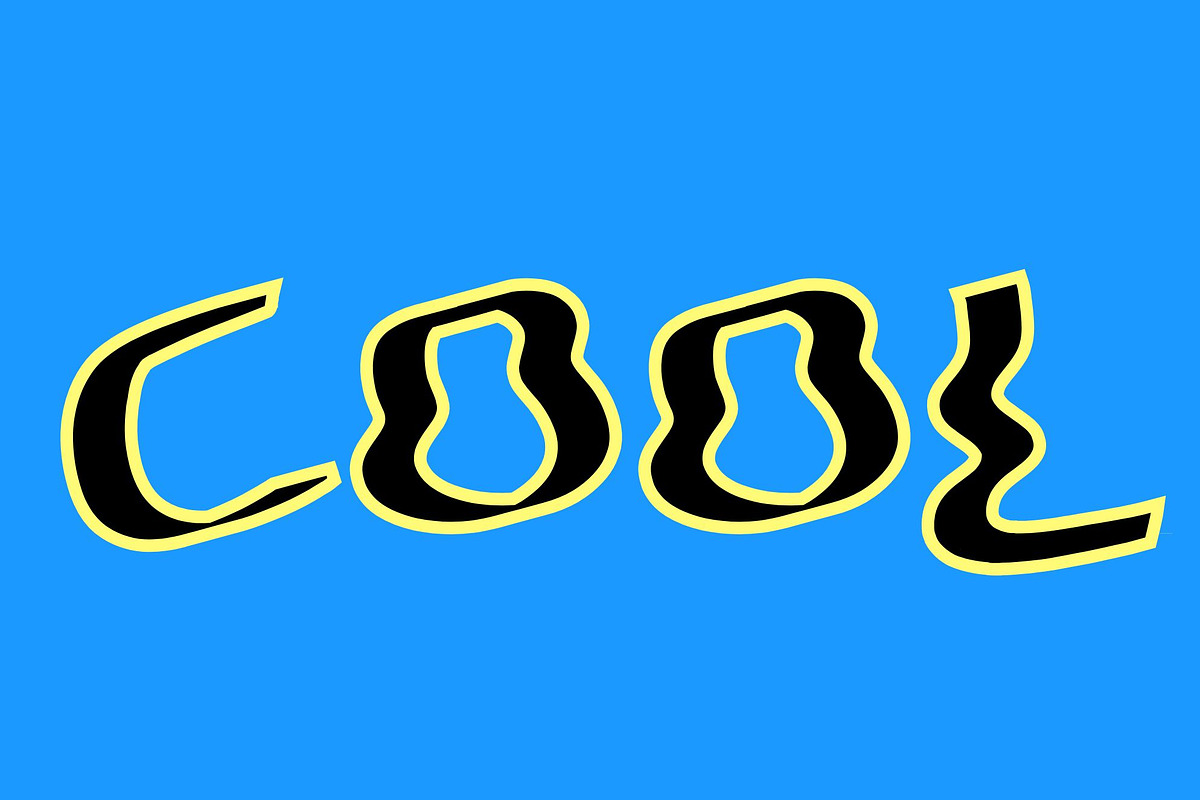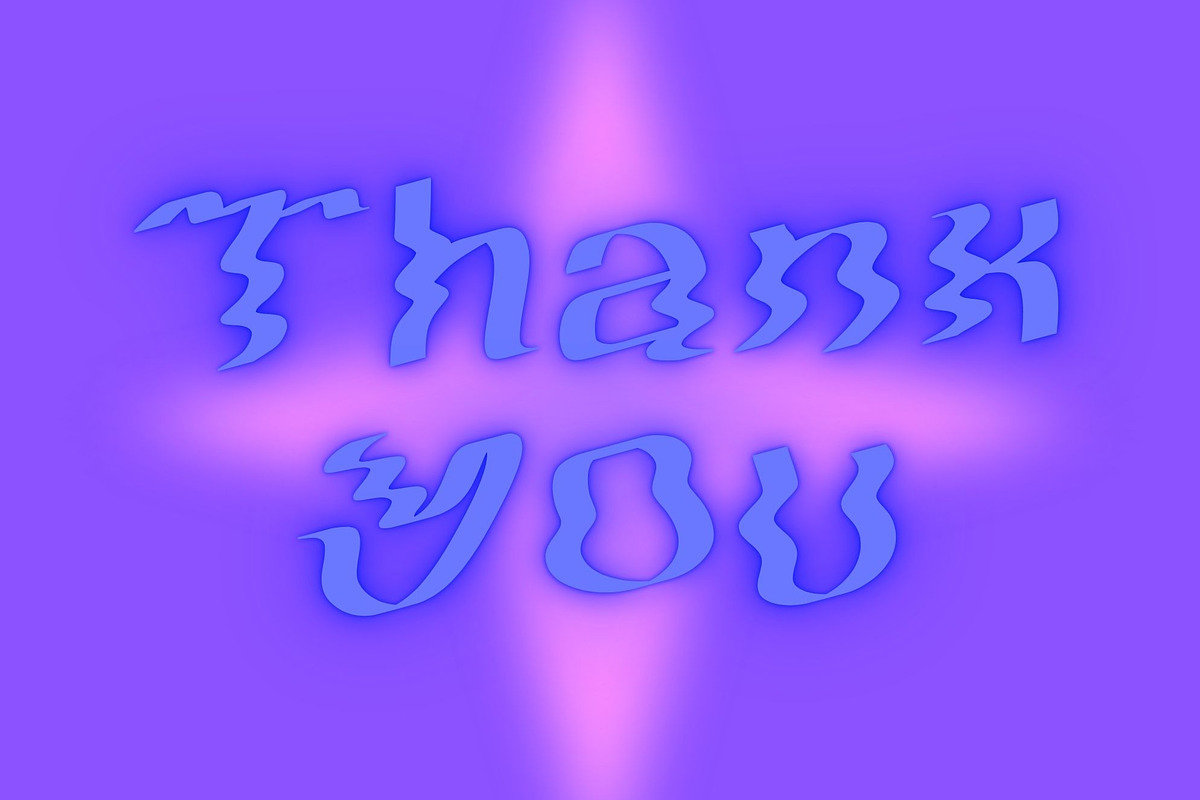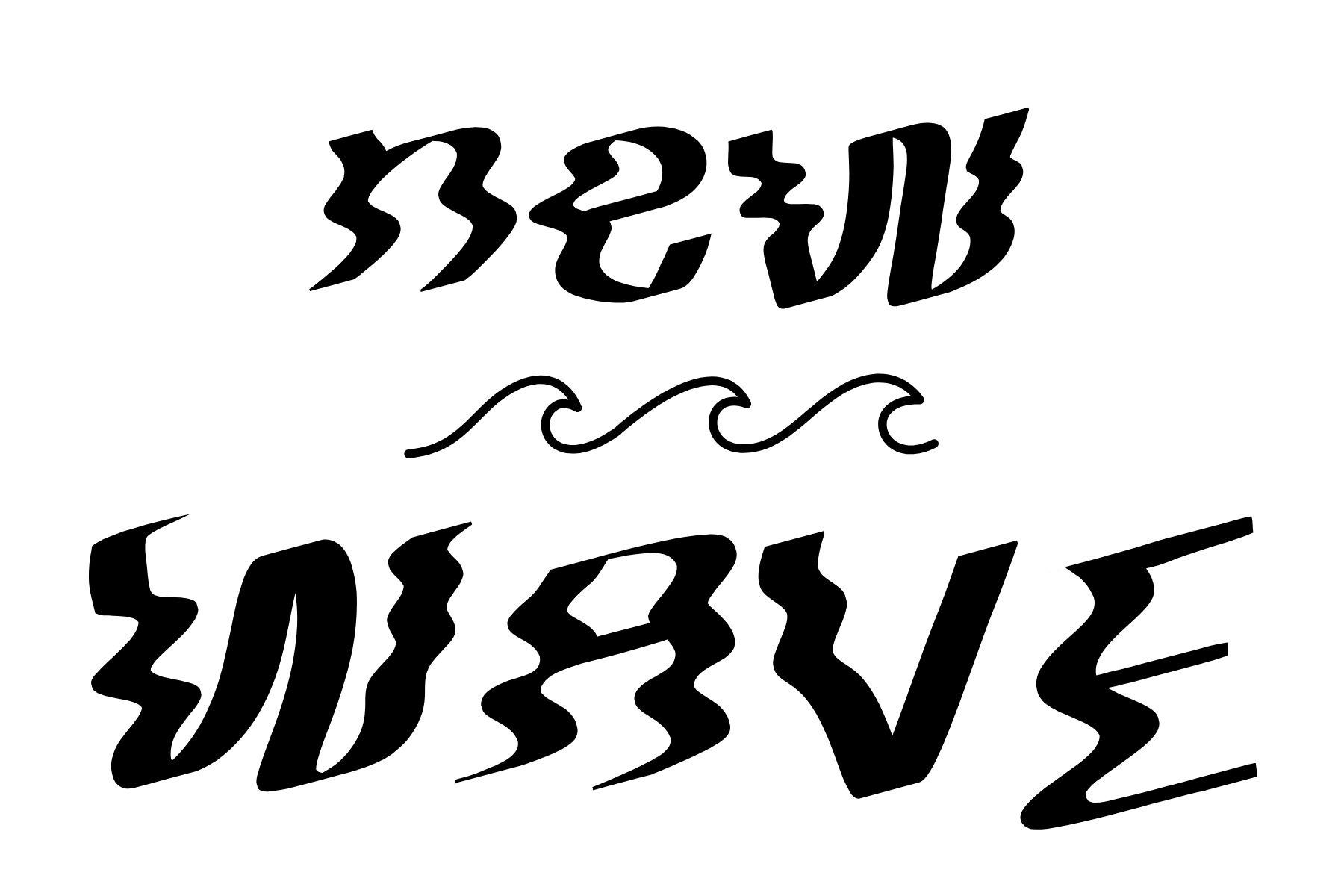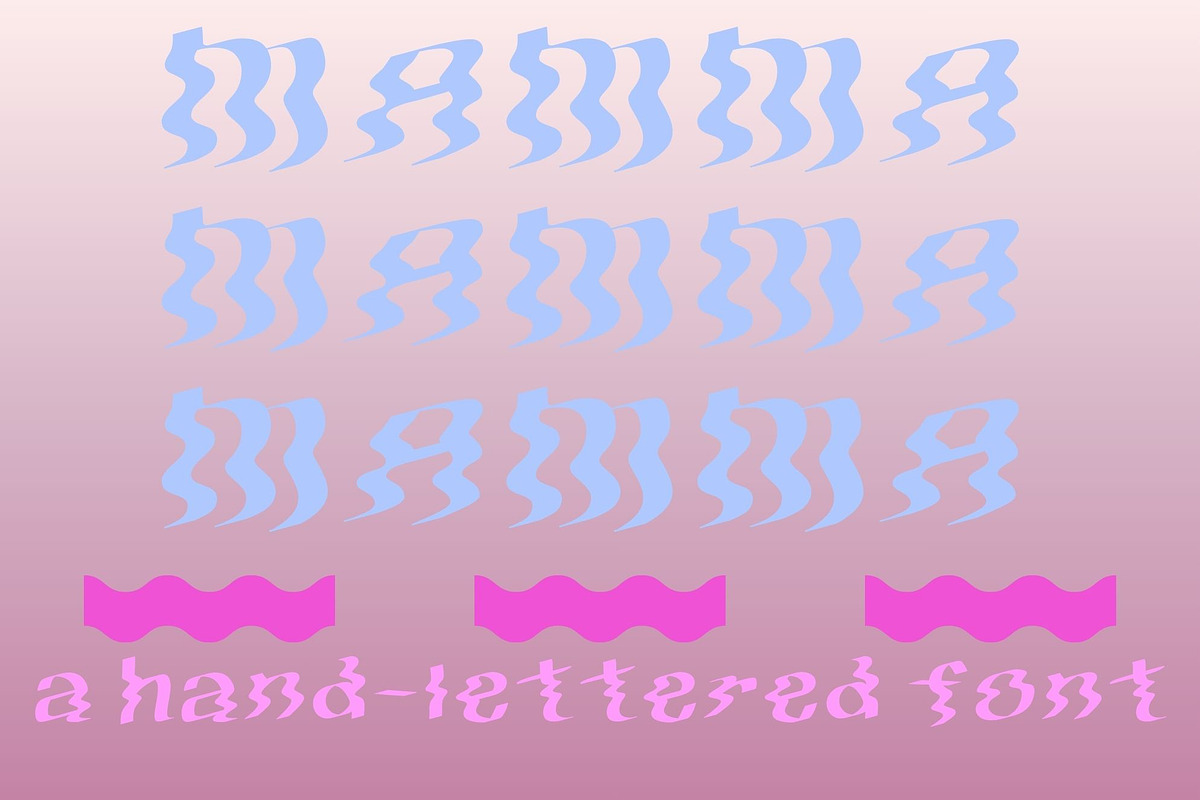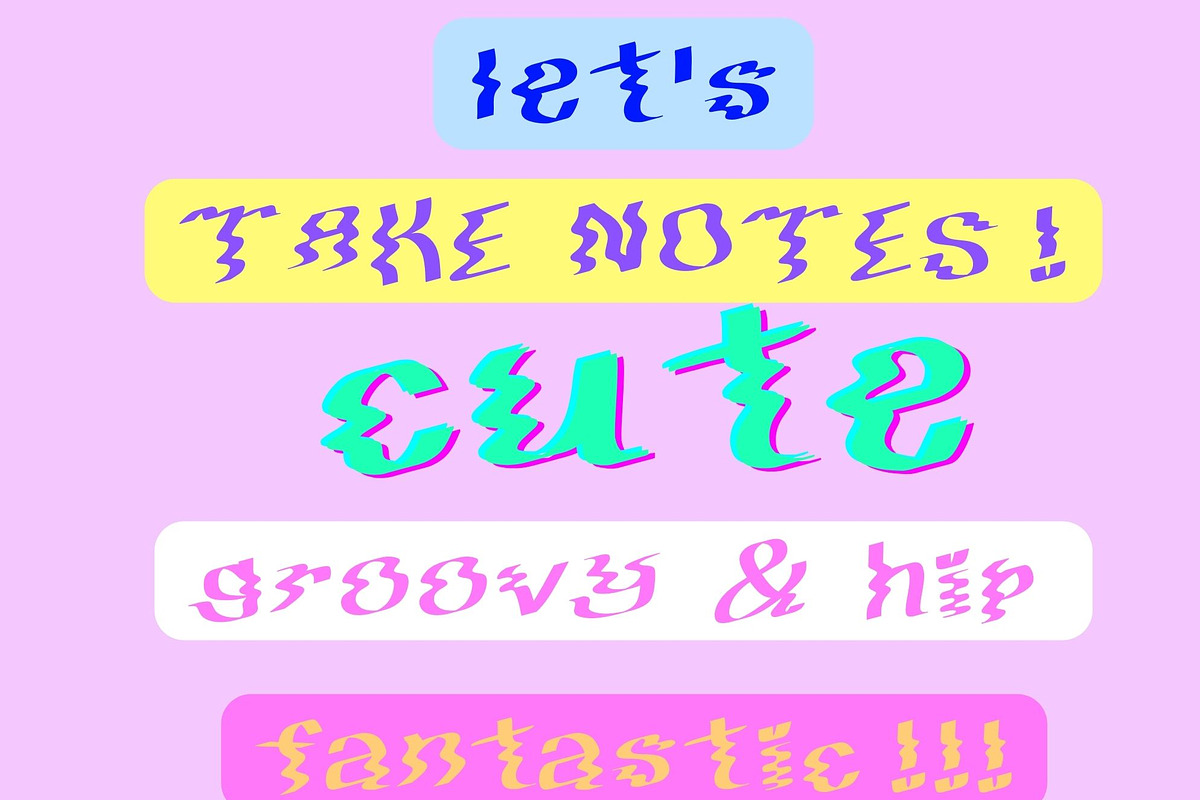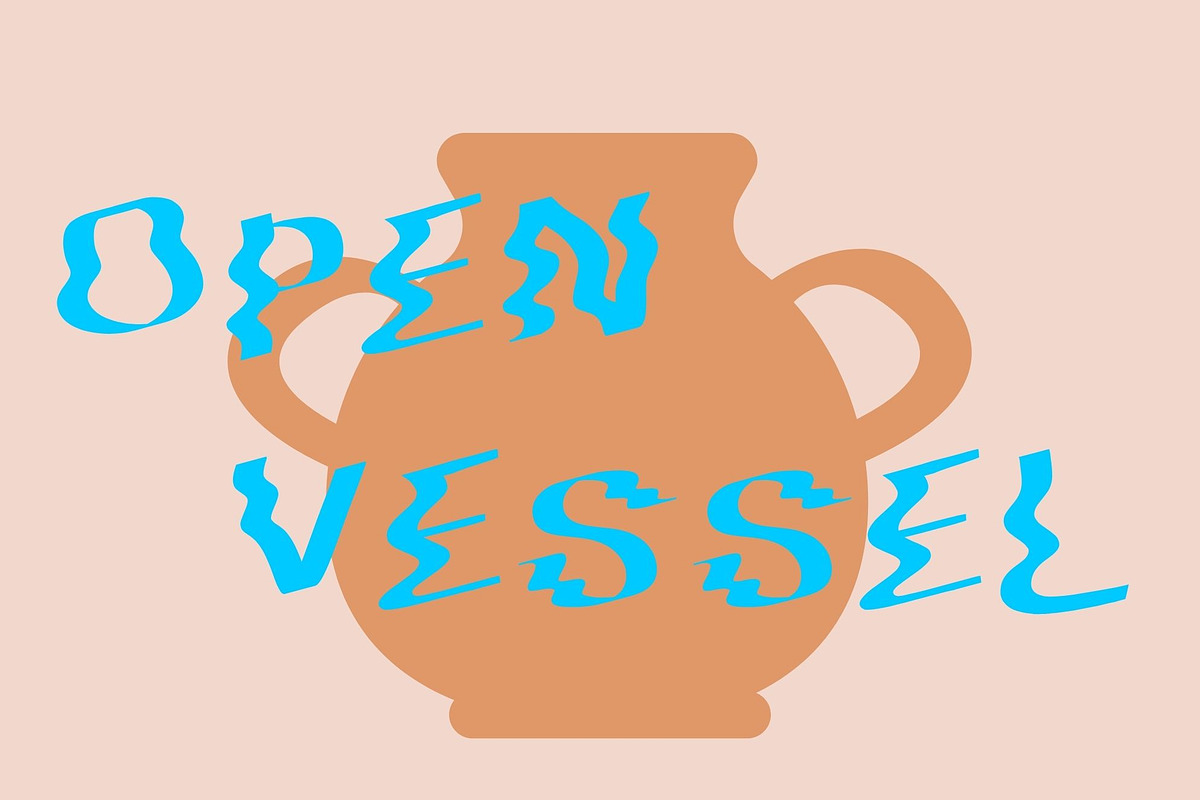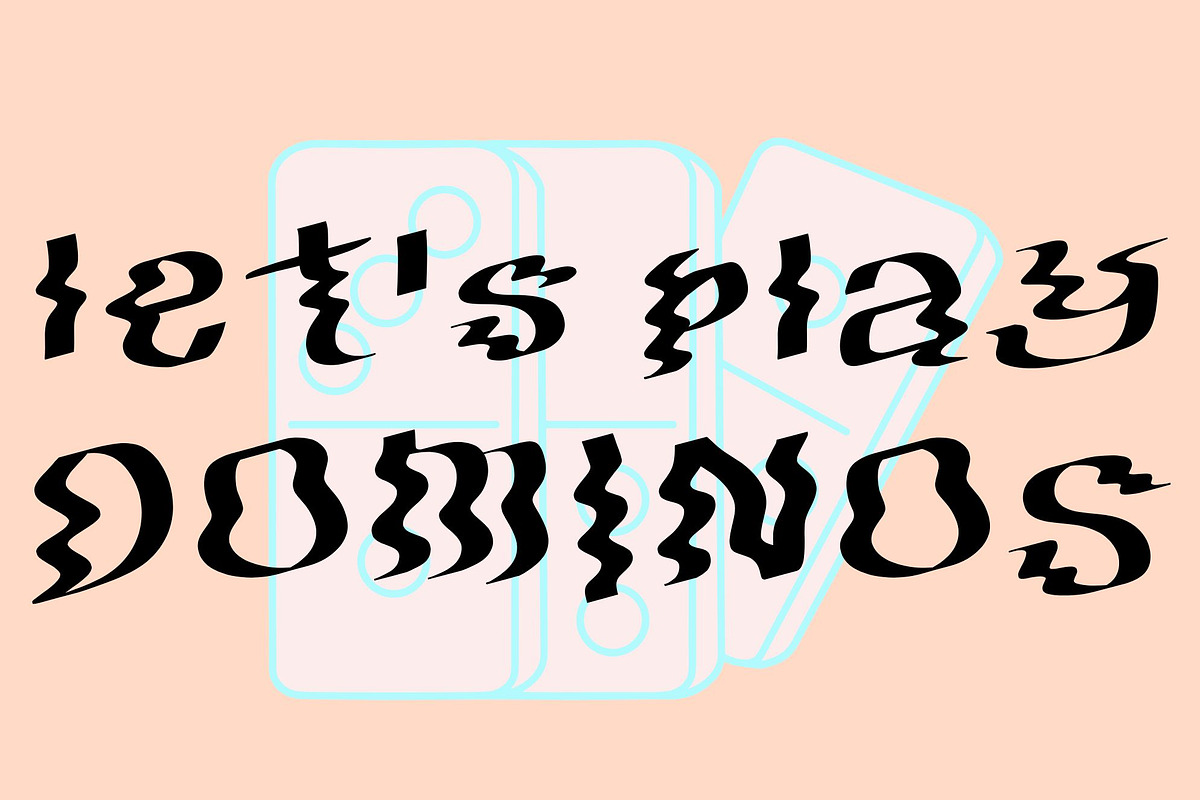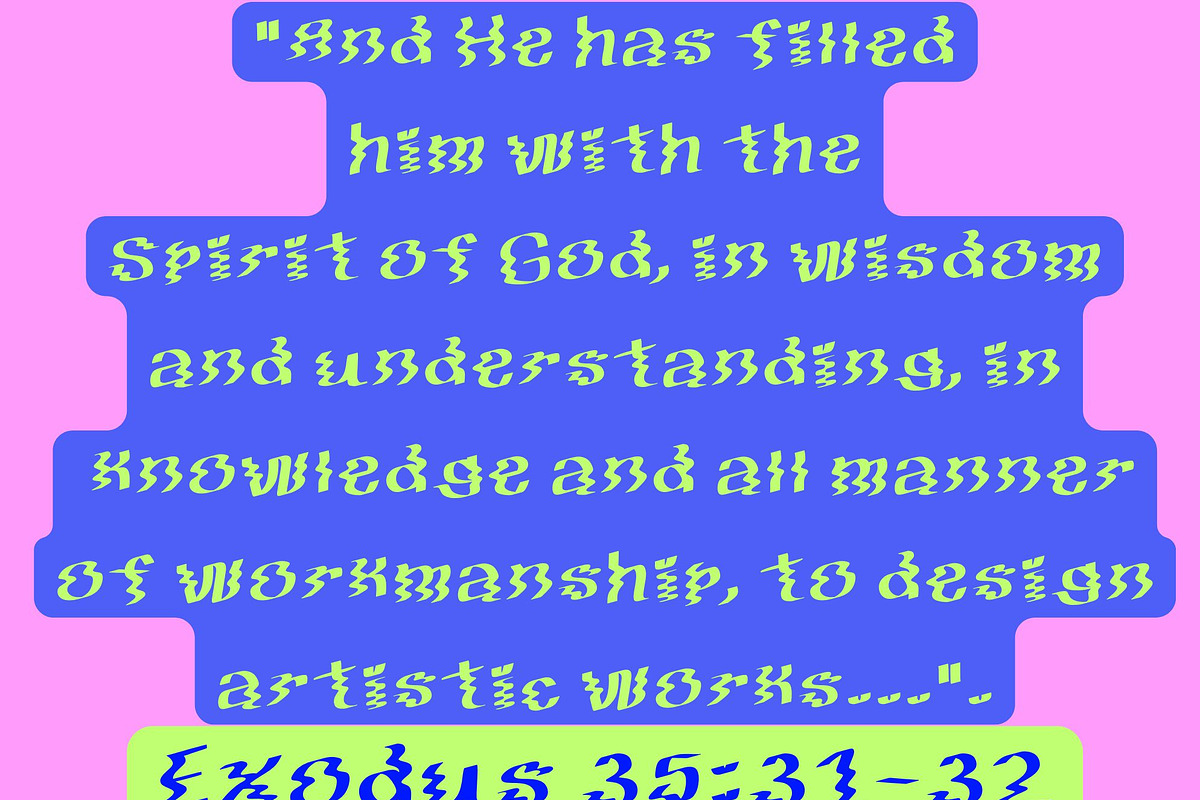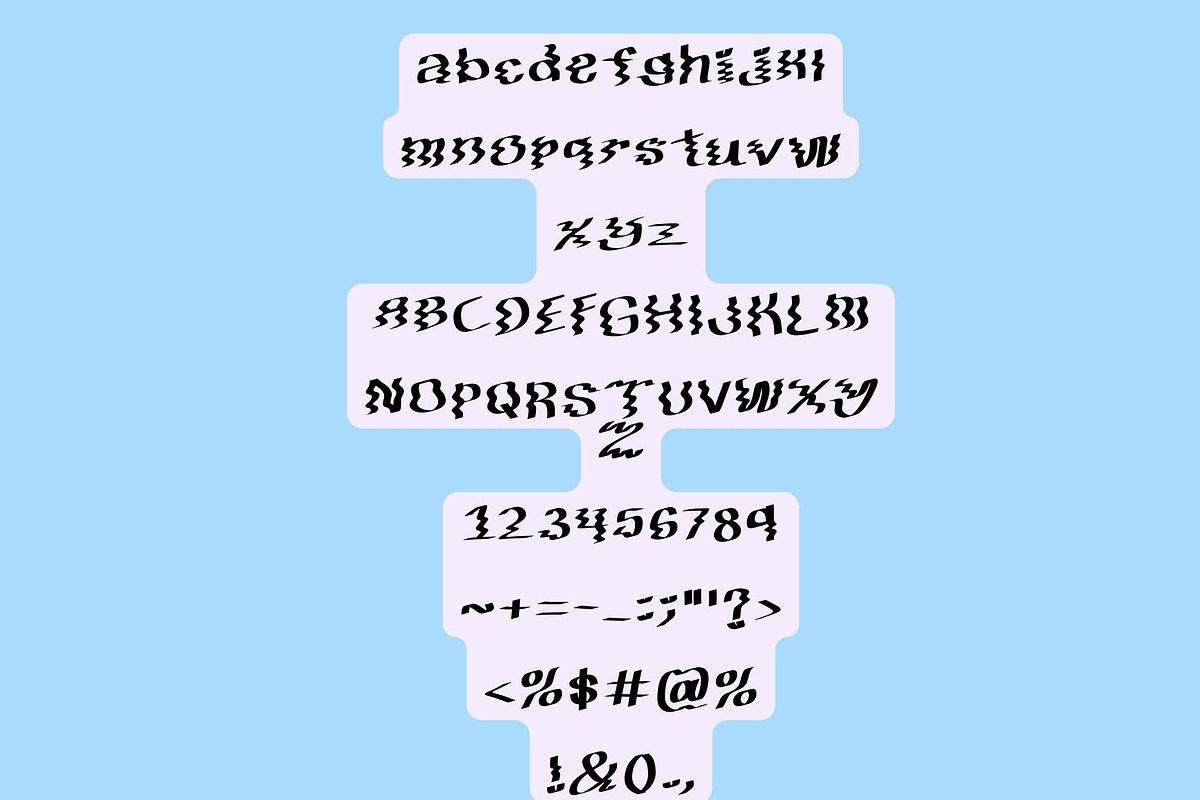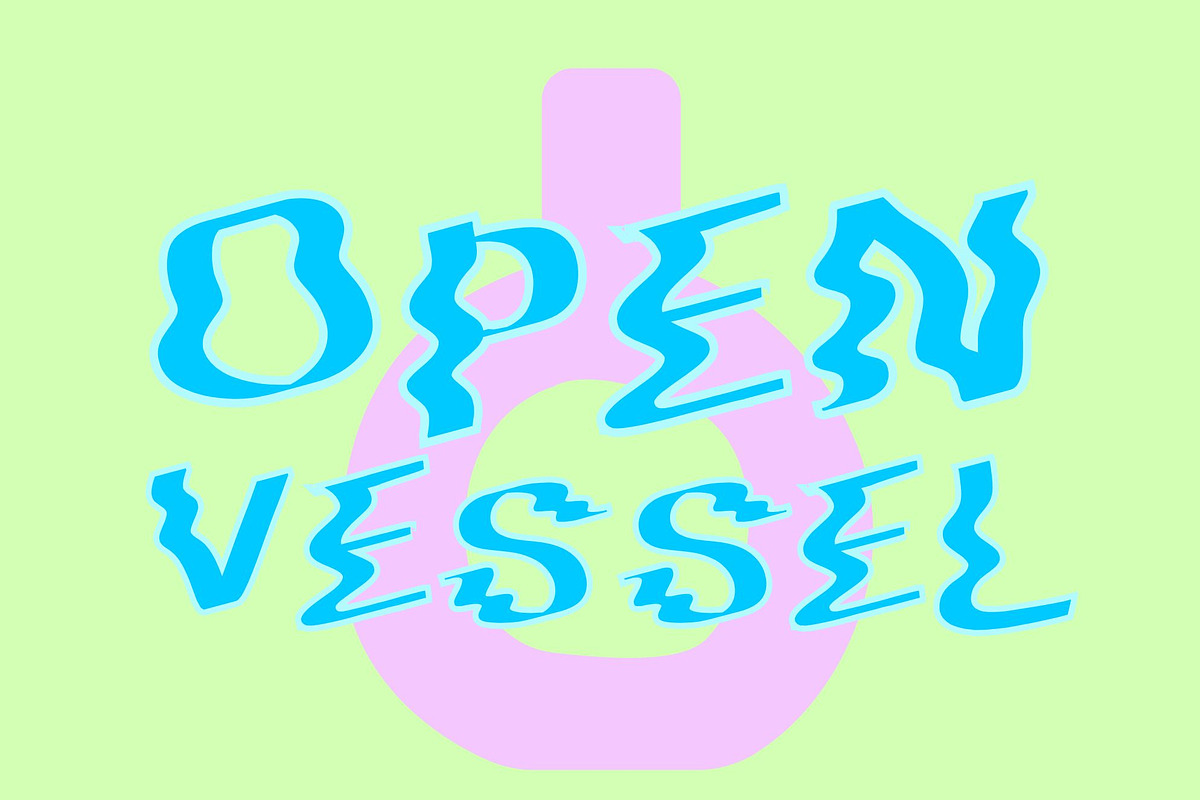
NEW WAVE a modern wave Display font
NEW WAVE is a unique, hand-drawn wave-inspired font that stands out in any design project. This one-of-a-kind gem is ideal for ultra-hip display needs such as posters, titles, and logos. With its eclectic, artsy, modern, and trendy style, NEW WAVE is designed to capture attention and make a statement. It embodies a contemporary aesthetic perfect for brands and designers who set trends rather than follow them, ensuring your work remains fresh and engaging.
- numbers and symbols